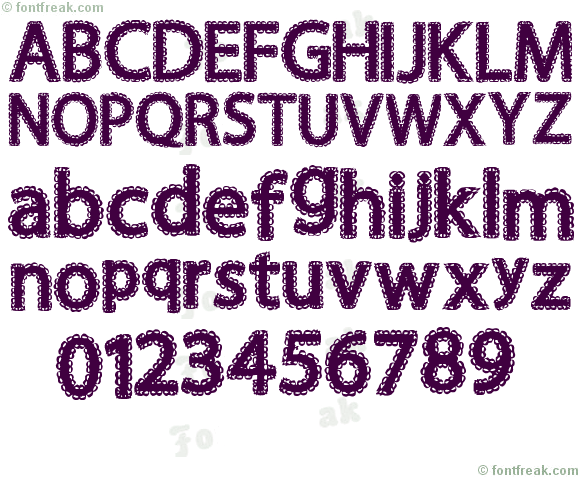
Victorias Sister
About Victorias Sister
Victorias Sister by Nicki Throndsen is a unique decorative font that stands out with its playful and whimsical design. This font falls into the category of display typefaces, characterized by its bold, rounded forms and eye-catching aesthetic. The strokes of Victorias Sister are thick and consistent, creating a sense of warmth and friendliness. The contrast is moderate, with rounded terminals giving it a soft, inviting appearance. The spacing is well-balanced, ensuring readability while maintaining a fun visual rhythm. Decorative elements, such as subtle curves and loops, add a charming touch that enhances its overall appeal.
This font is ideal for various creative projects. It’s particularly well-suited for wedding invitations, where its lighthearted vibe can evoke joy and celebration. Additionally, Victorias Sister works beautifully for children's book covers, capturing the imagination of young readers. Restaurant menus can also benefit from its unique character, making the dining experience feel more inviting and personal. Moreover, graphic designers can use this font for branding projects, especially when aiming to convey a friendly and approachable image.
What sets the Victorias Sister font apart is its distinctive flair that captures attention while remaining functional. Its unique character and decorative elements allow it to shine in various applications, making it a valuable addition to any designer’s toolkit. For those interested, a Victorias Sister font free download is readily available, enabling easy access to this charming typeface.